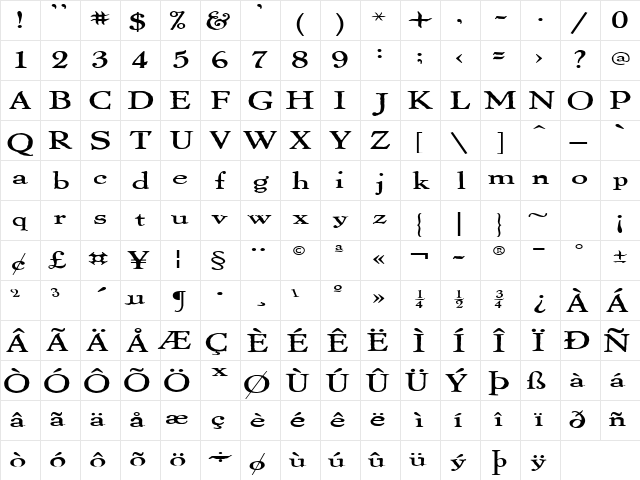
ThomasPaineExtended Regular
ThomasPaineExtended Family
Design Context for ThomasPaineExtended
ThomasPaineExtended is a composed and adaptable typeface that performs quietly and consistently across a wide range of design contexts.